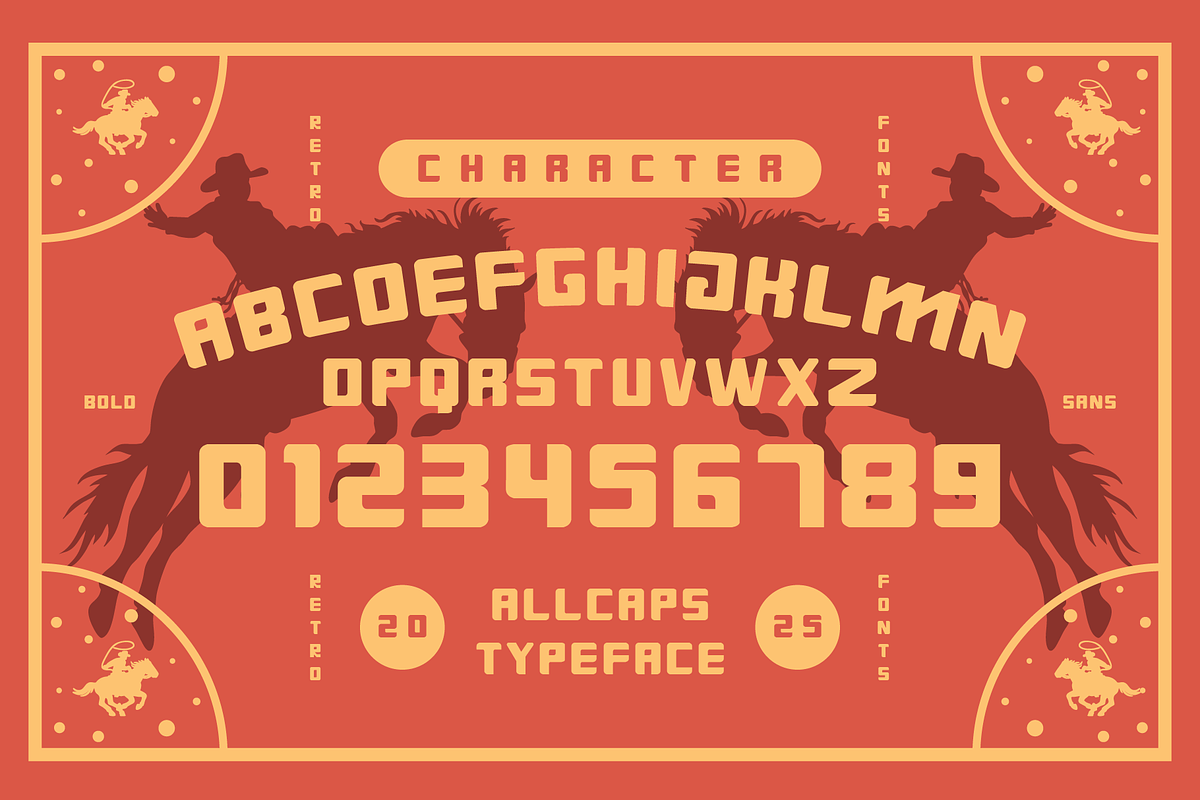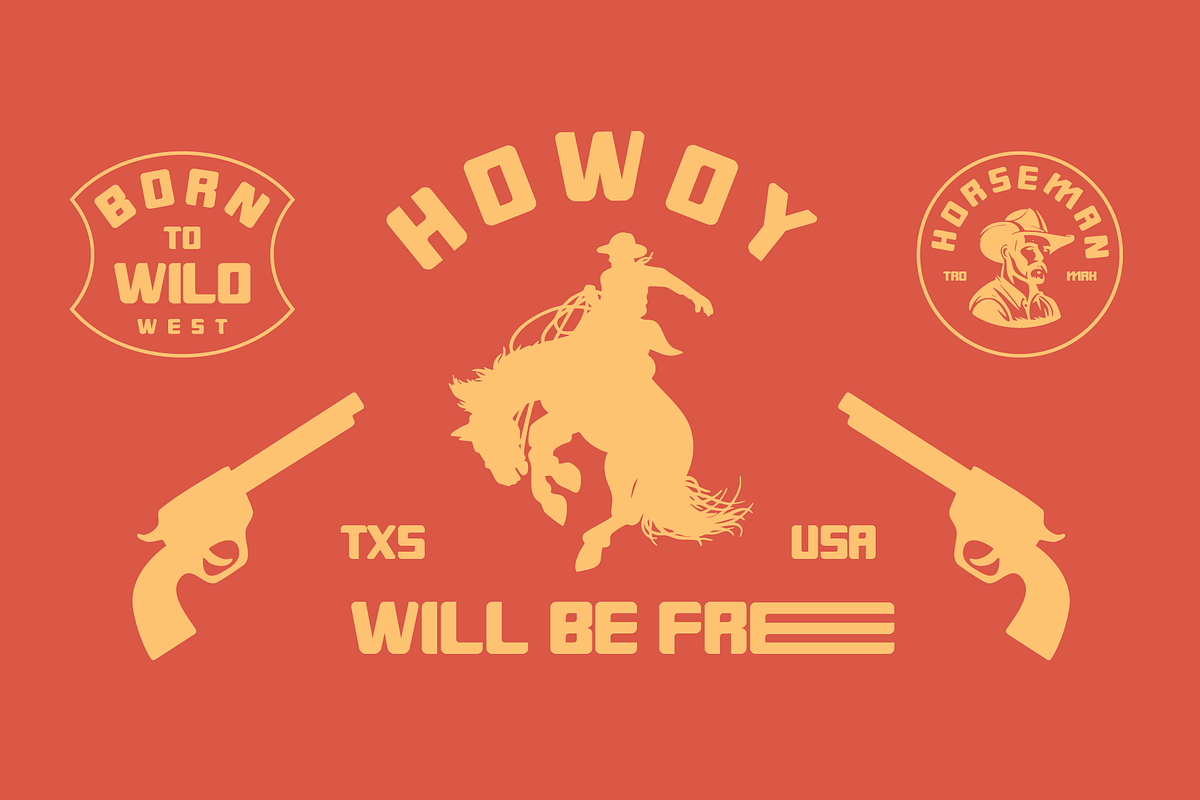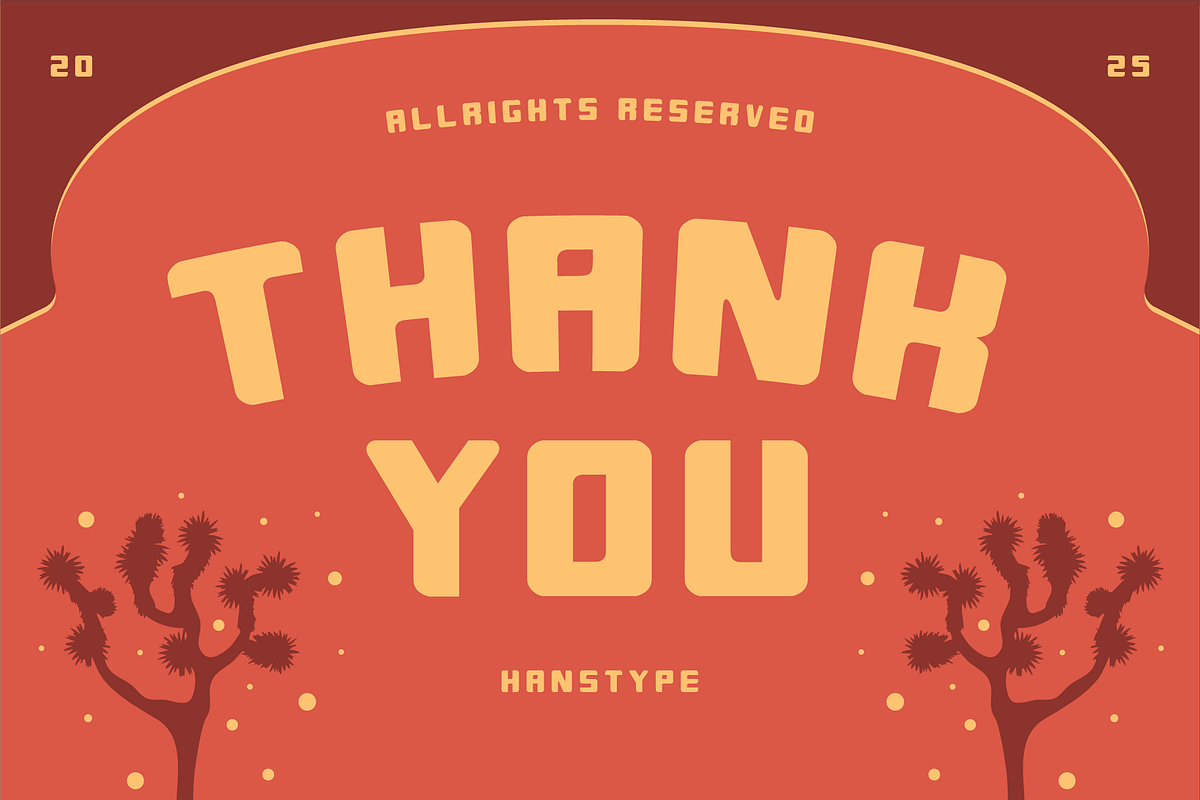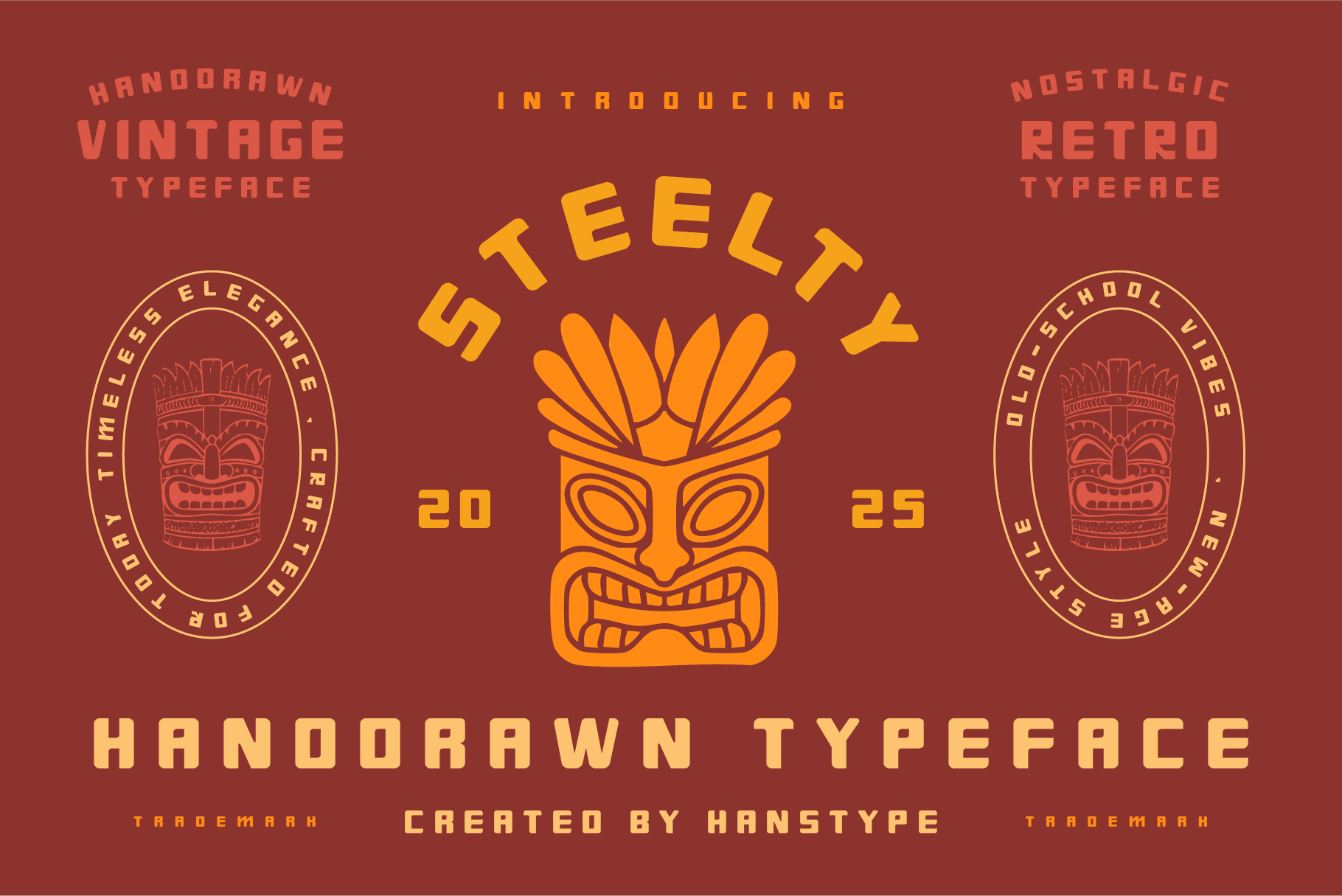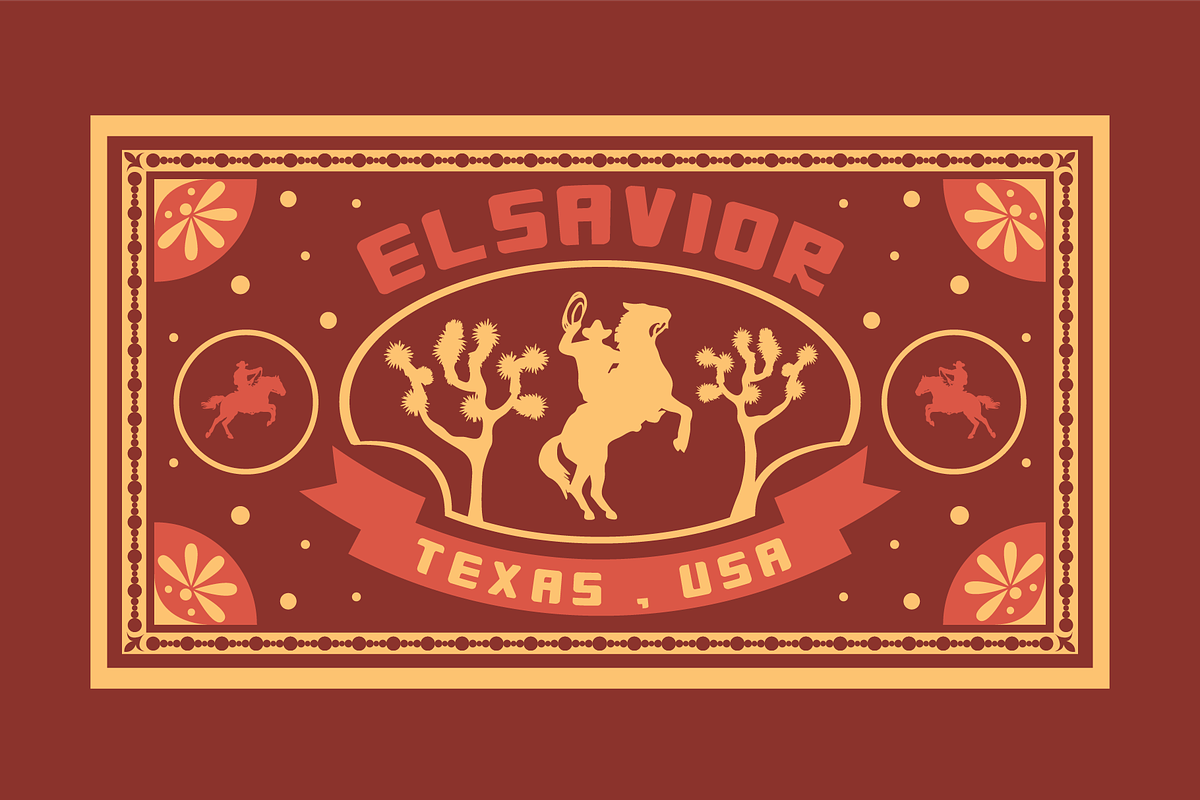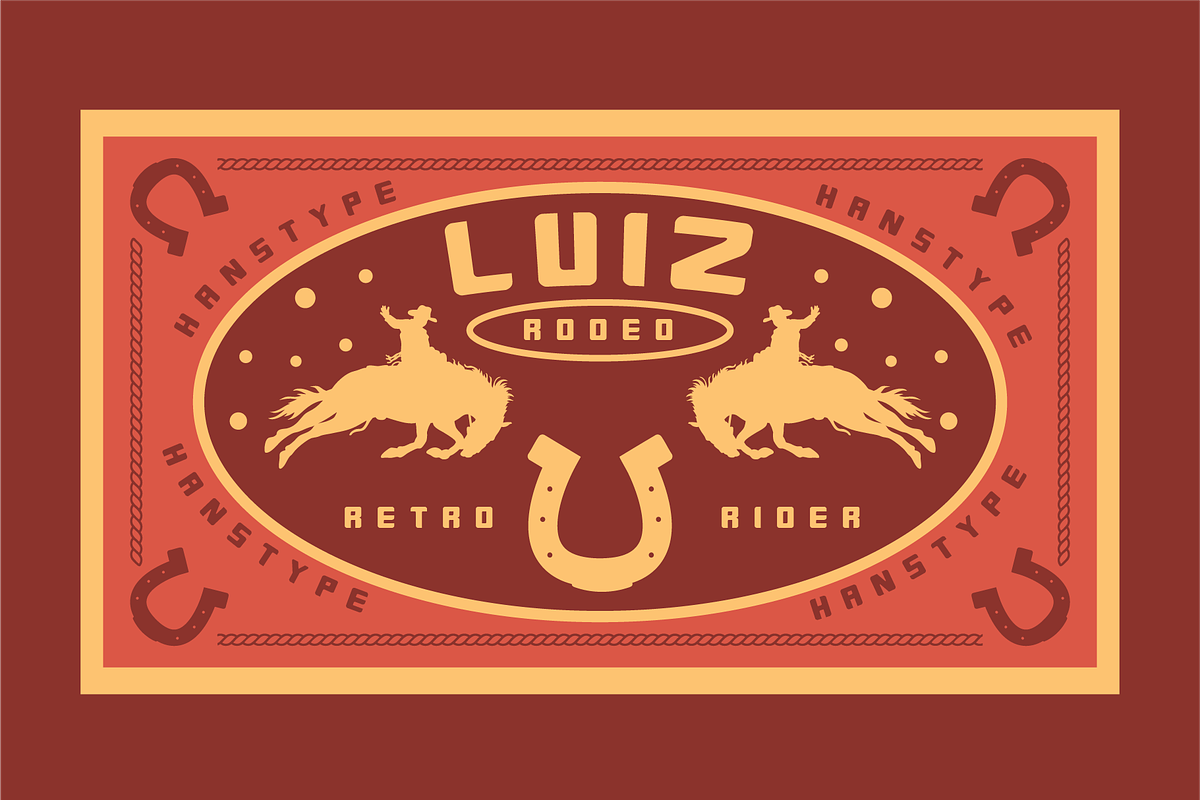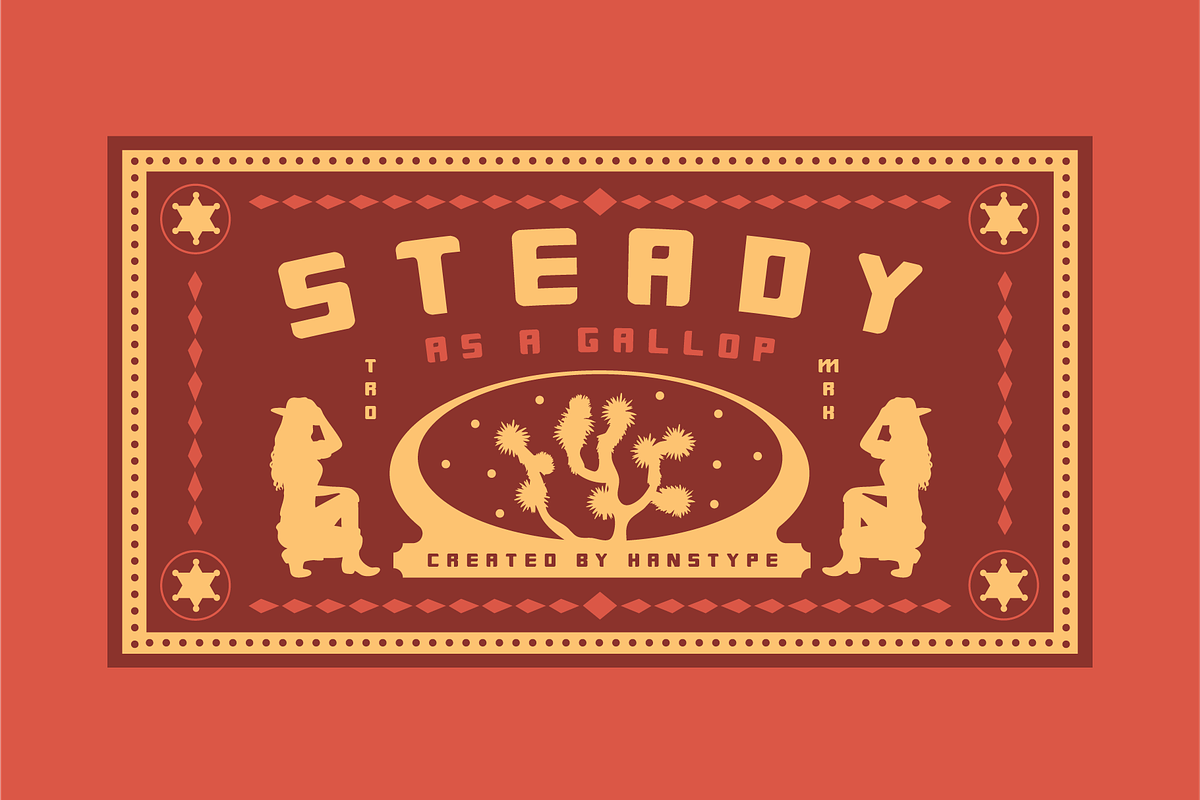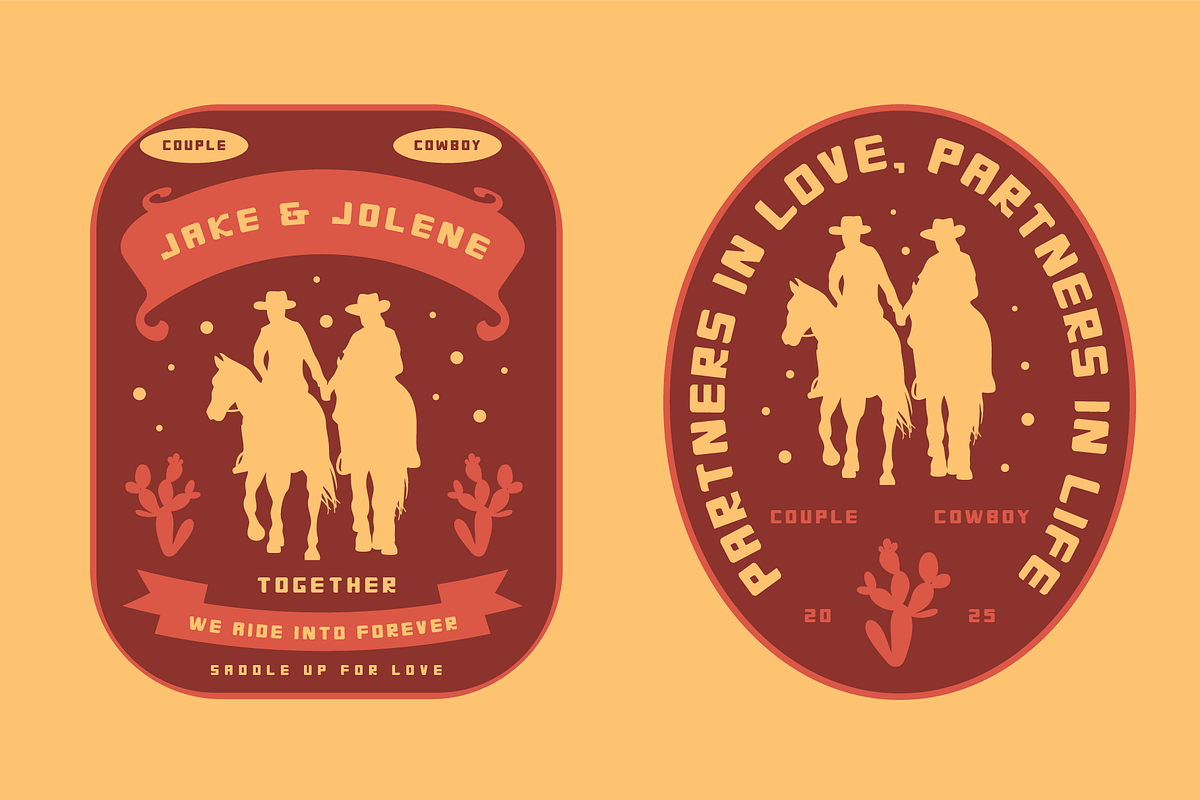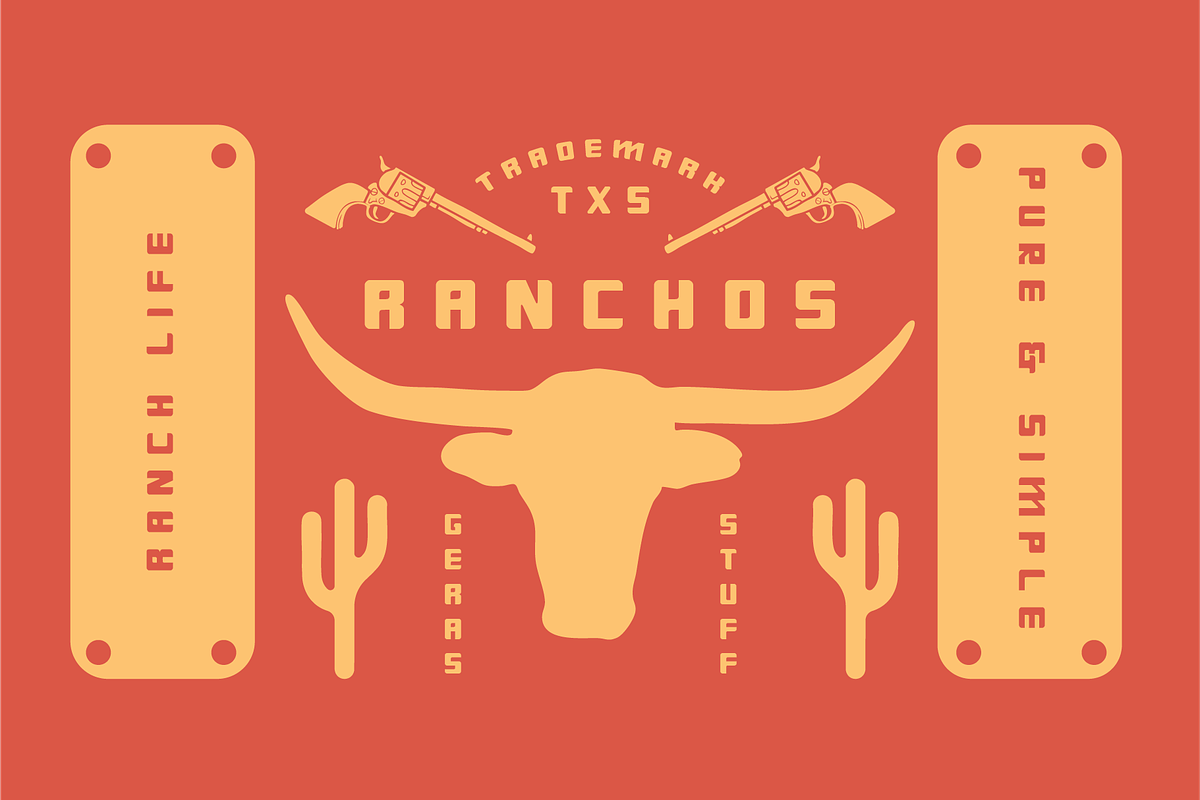
Steelty - Vintage Display Font
Steelty Font is a striking display sans serif typeface designed to make an impact. Its strong, clean lines and sharp angles exude confidence and authority, making it the perfect choice for headlines, branding, posters, and digital designs that demand attention.
Crafted with precision, Steelty offers a balance between modern minimalism and bold expression. The typeface features a versatile structure that adapts seamlessly across various mediums, whether for print or screen. Its geometric elegance combined with a robust design ensures legibility at any scale, while its unique style adds a sense of professionalism and sophistication to your work. Steelty Font embodies strength, clarity, and a no-nonsense attitude. Whether you're creating corporate designs, edgy advertisements, or standout visuals, Steelty is the font that delivers boldness and precision with every letter.